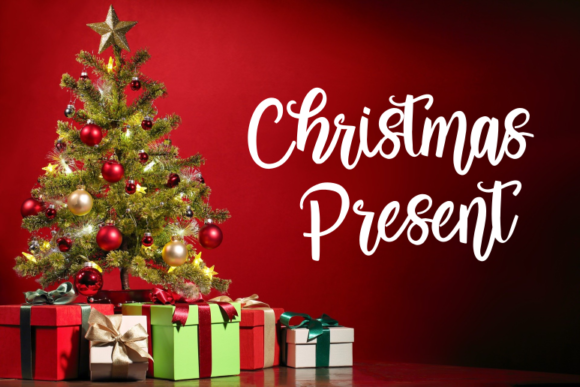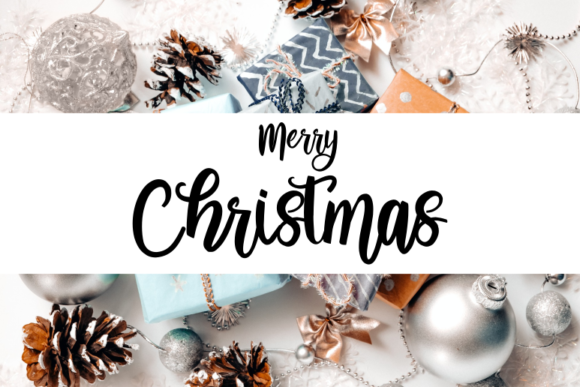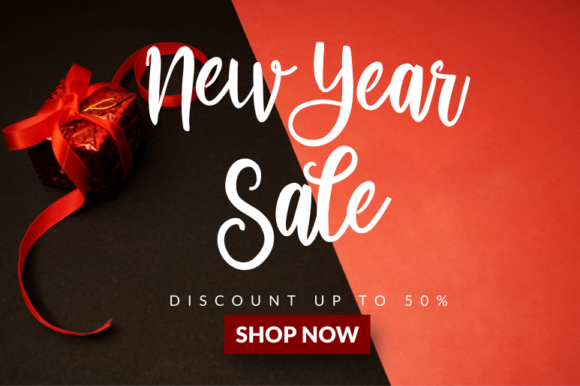
Magic Christmas Font
About Magic Christmas Font
Magic Christmas is an elegant script font with a contemporary atmosphere and impeccable form, inspired by timeless modern calligraphy. Add this romantic font to each of your love letters, wedding invitations or favorite design ideas, and you will be astounded by the outcome.